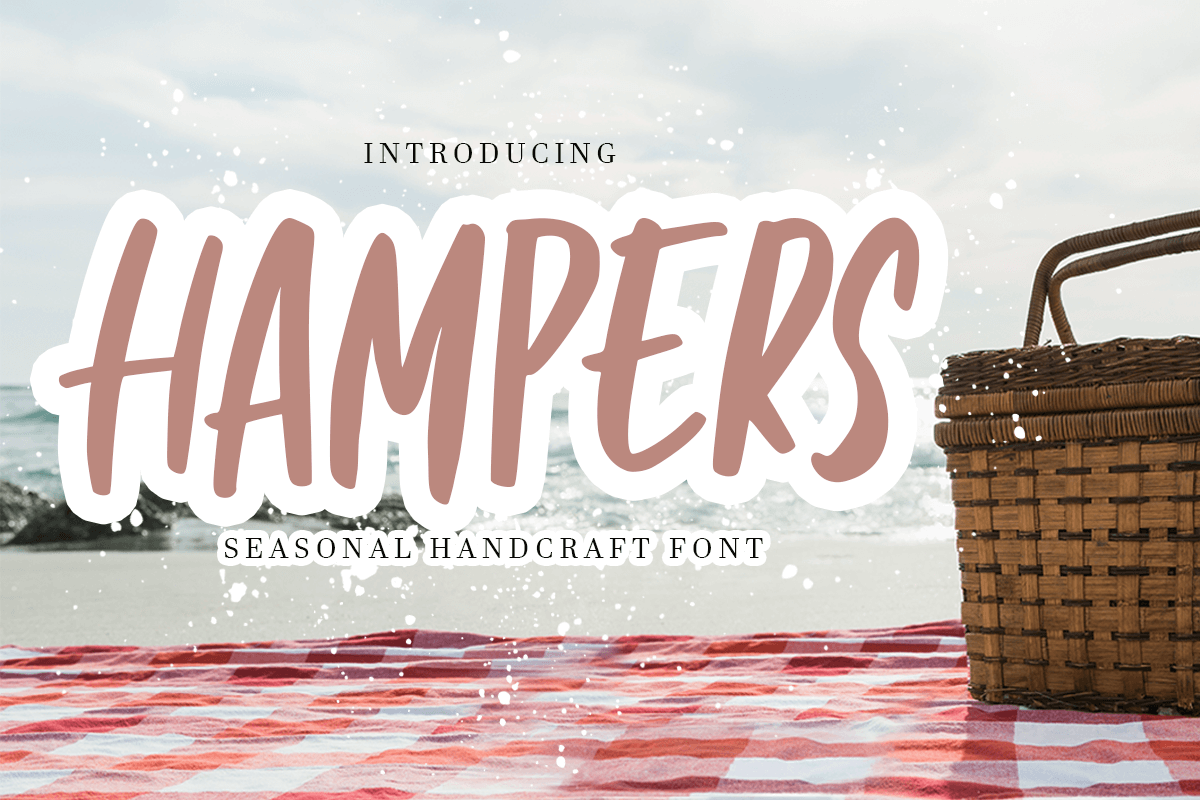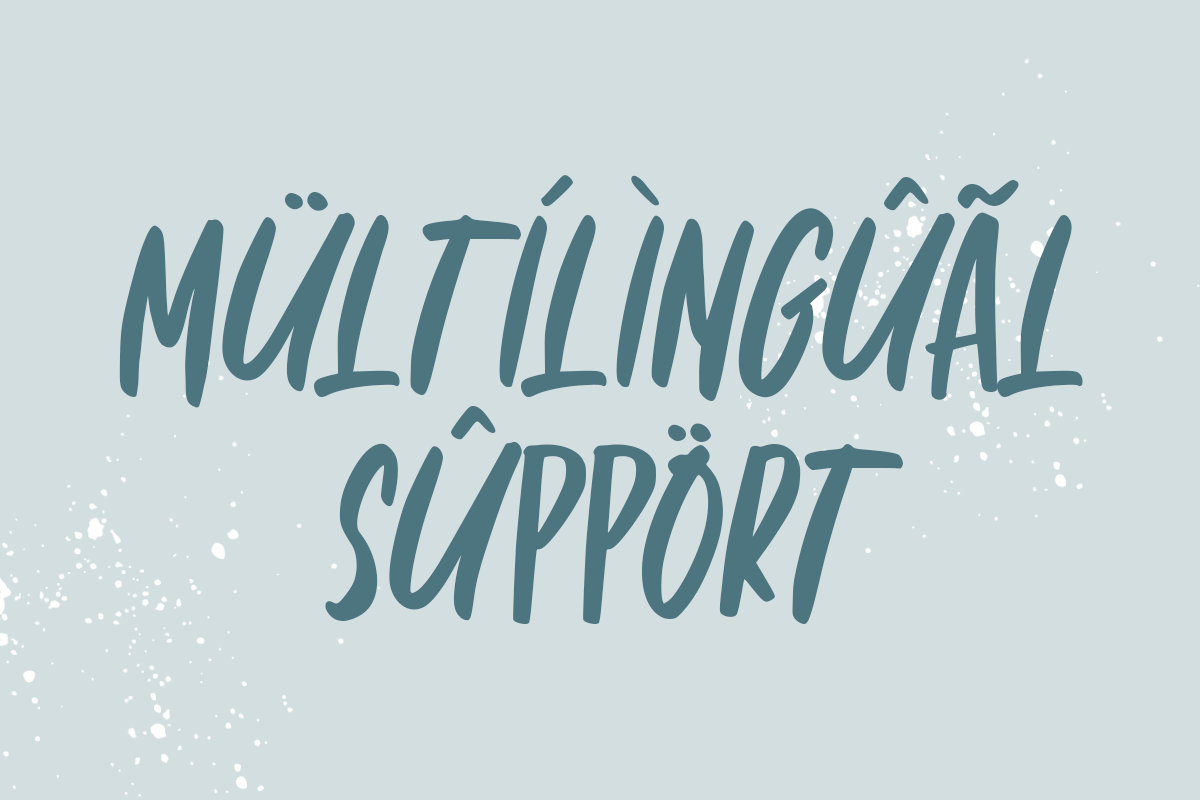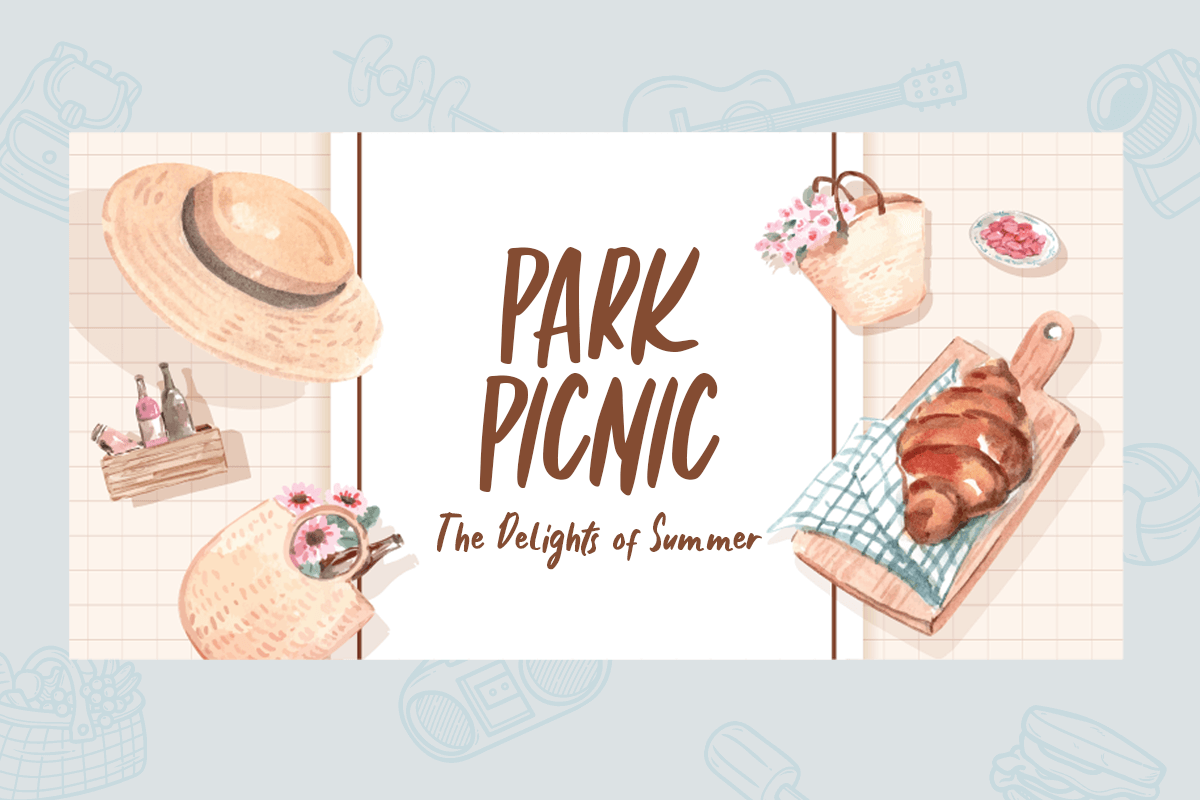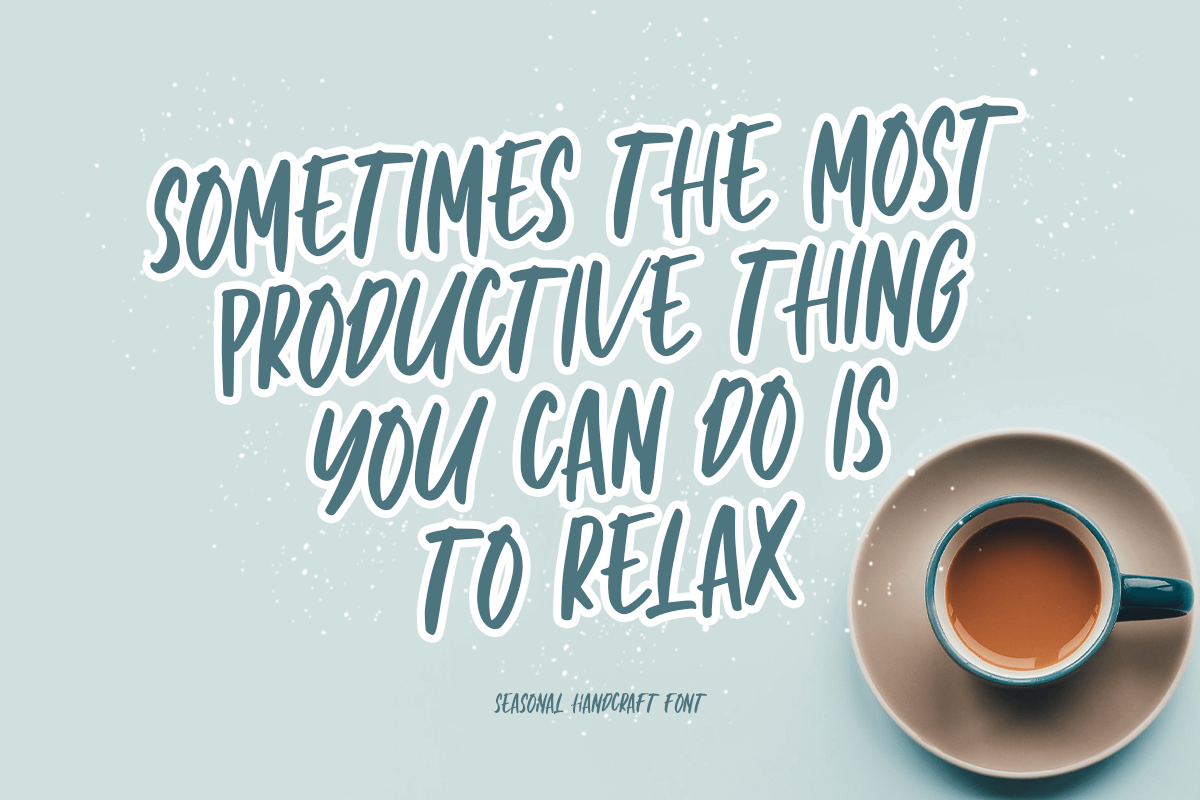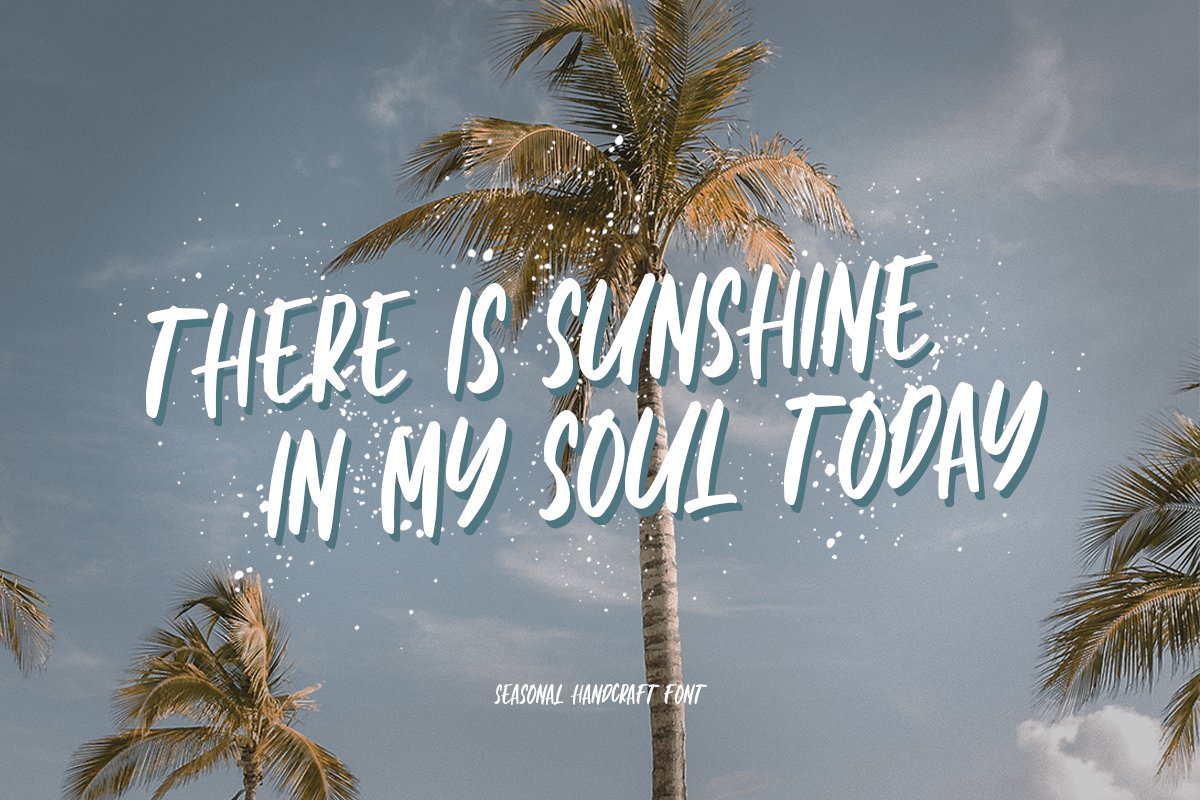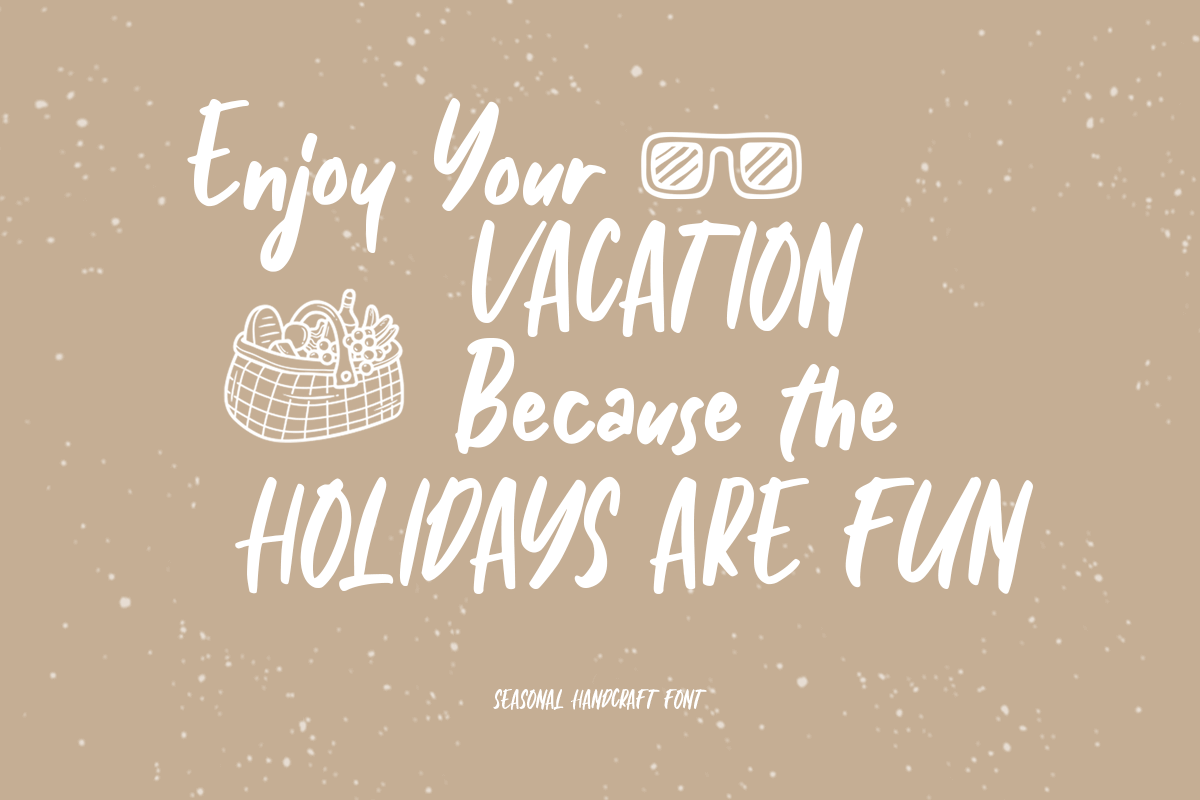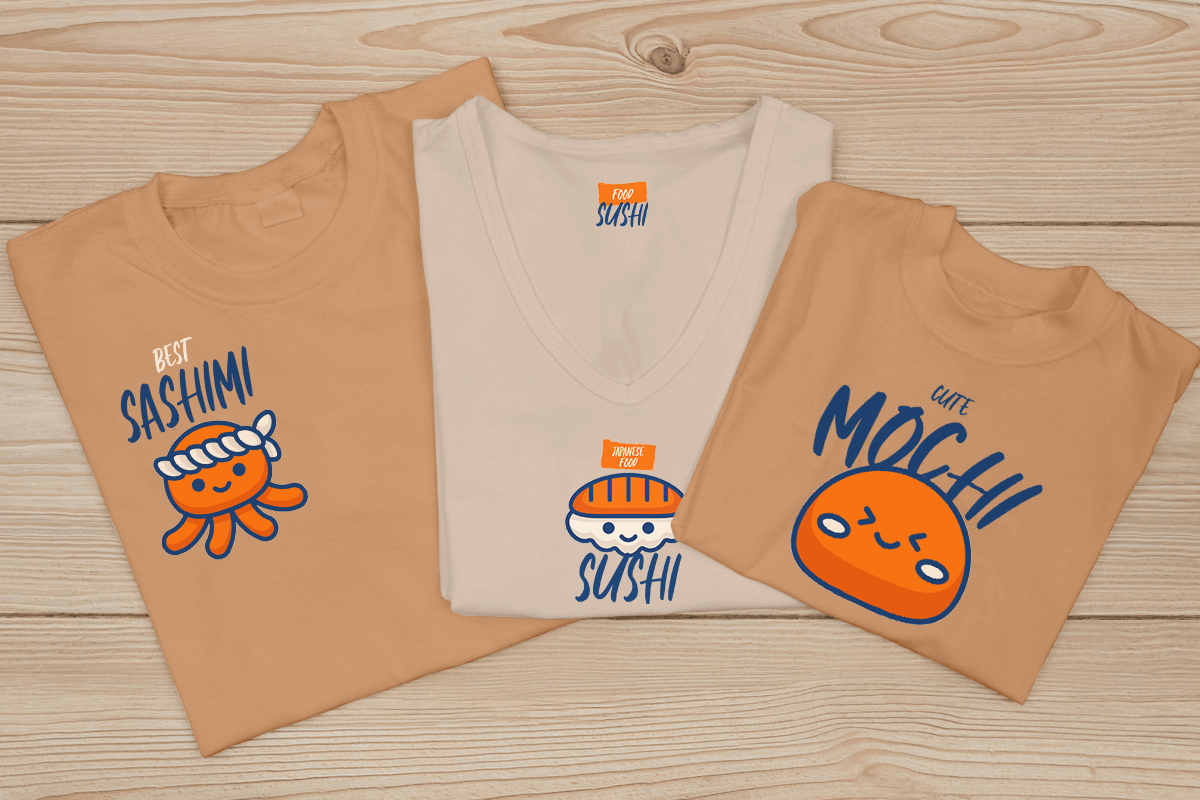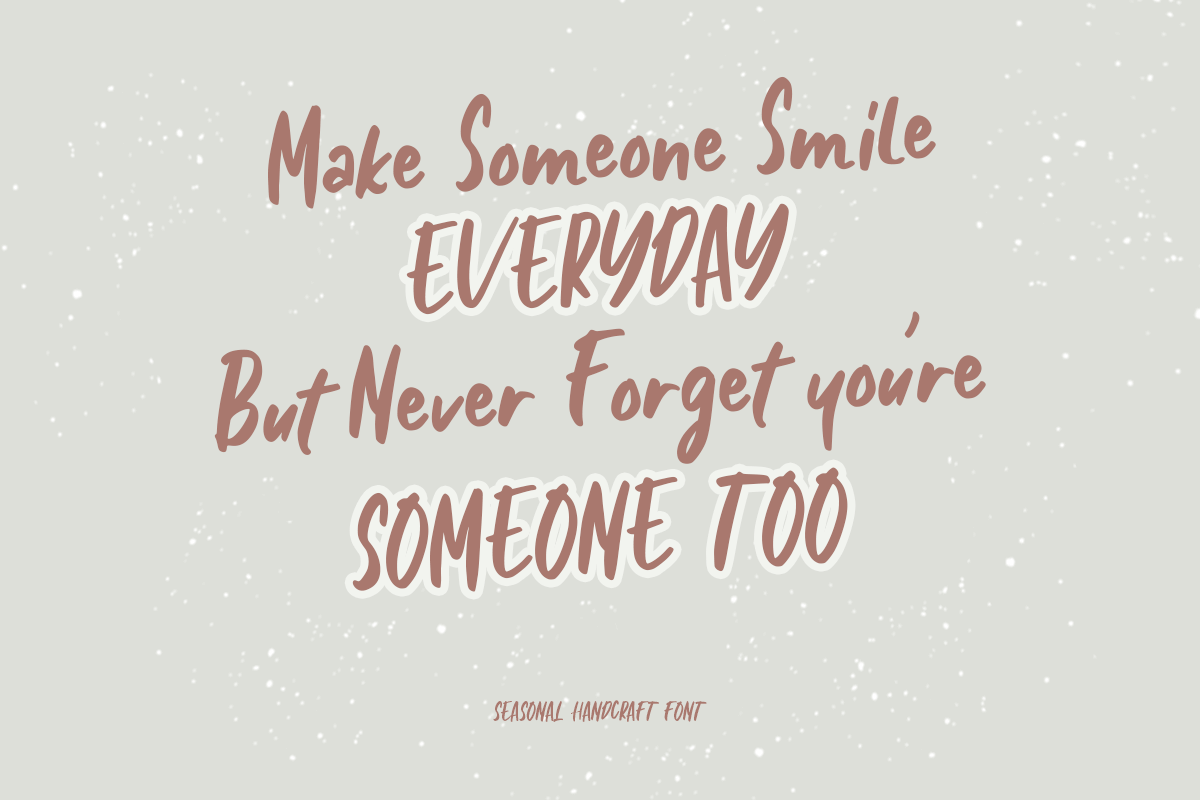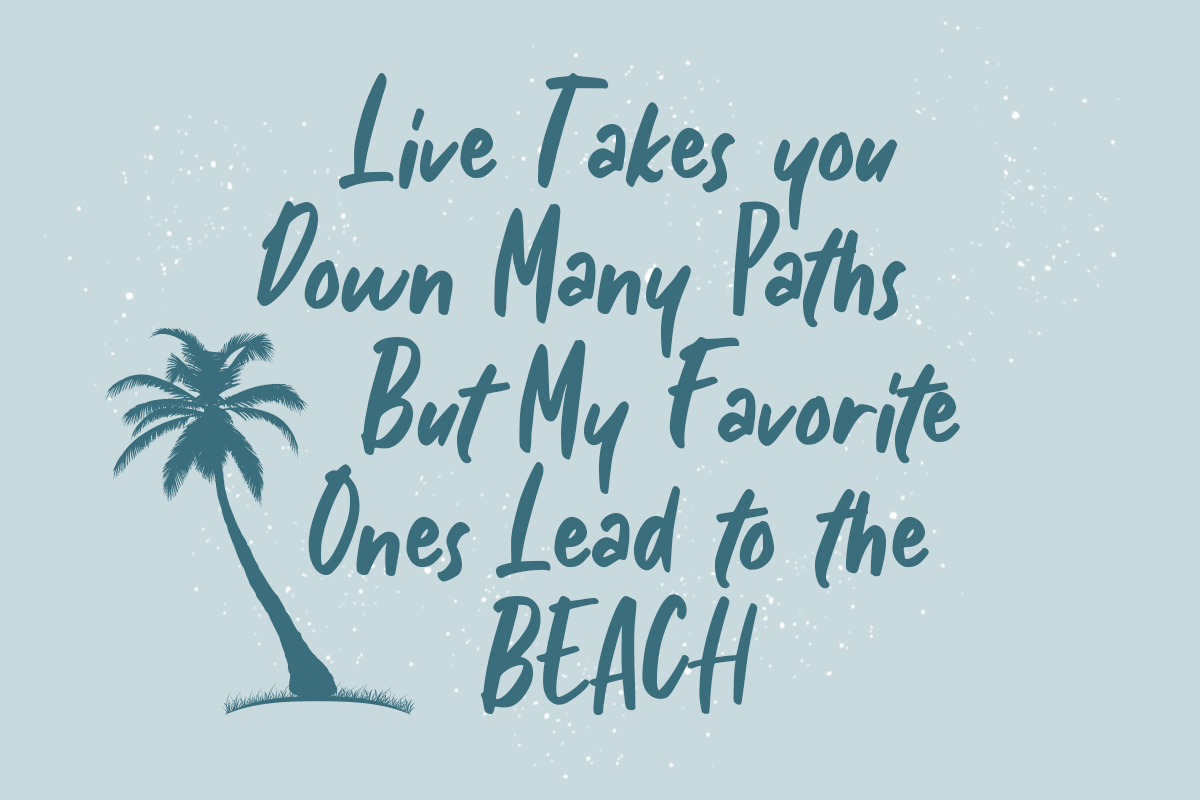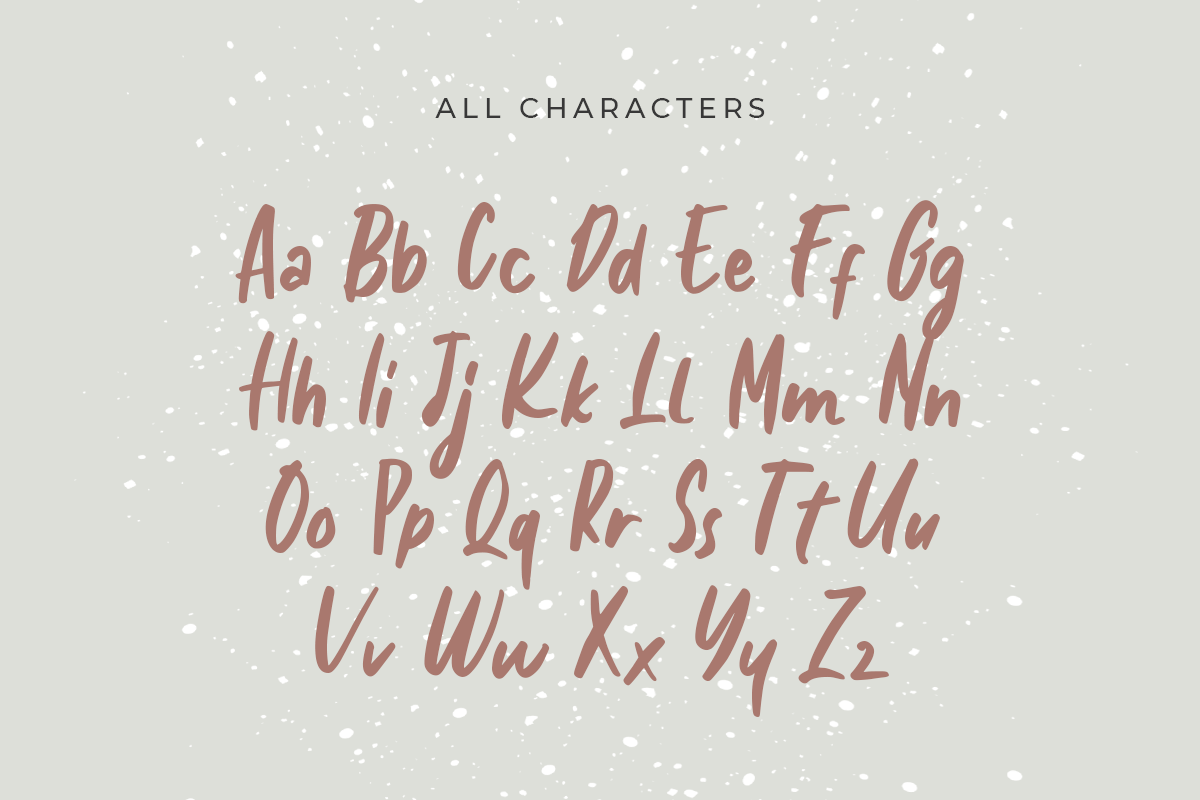
Hampers
-Seasonal Handcraft FontType Tester
Introducing Hampers, the perfect seasonal font for your handmade designs.
This unique typeface captures the spirit of the holidays and special occasions with its handcrafted look and feel. Whether you’re creating designs for Christmas, Easter, or any other holiday, Hampers is the perfect choice. Its whimsical and playful style adds a touch of warmth and charm to your designs, making them stand out and delight your audience. This font is perfect for creating greeting cards, invitations, posters, and other festive designs.